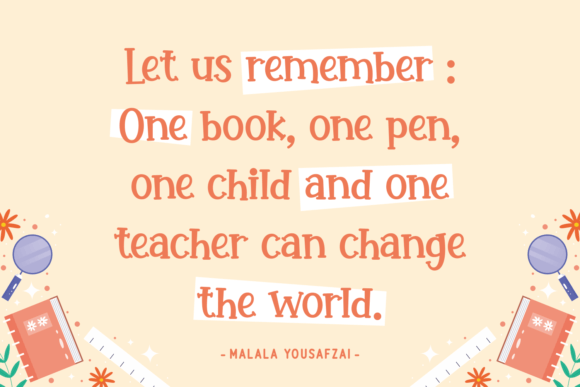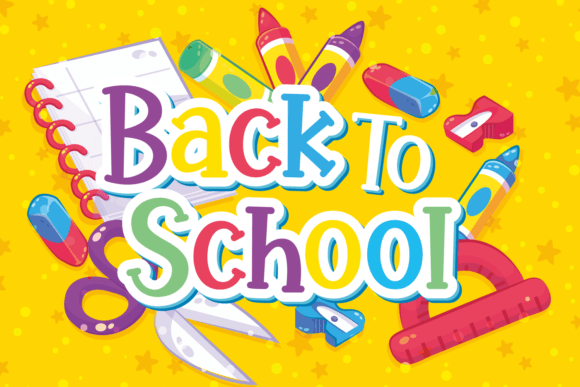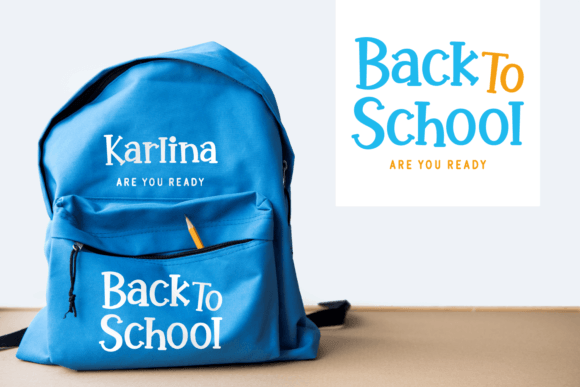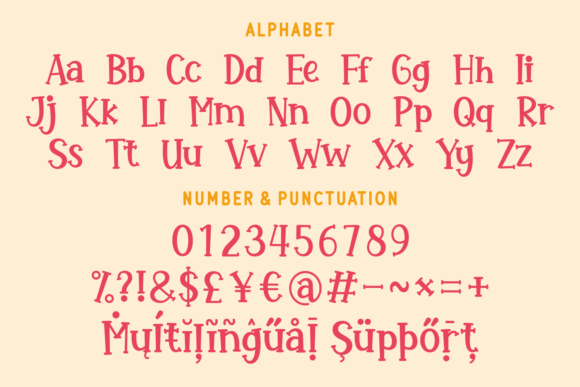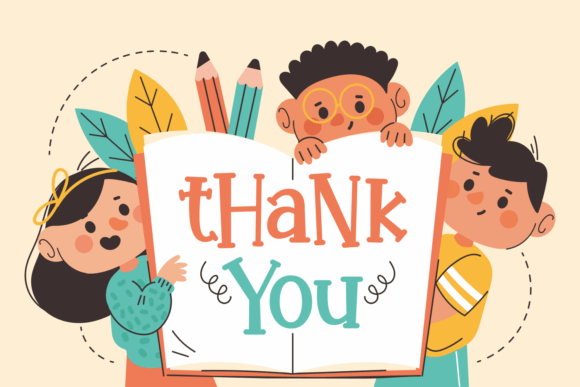
Introduction to Danila School Font
Danila School is a fun and playful serif font, suitable for any creative project with a youthful vibe.
Add it to childrenโs books, school supplies, storybooks, and more, and combine it with bright colors for the full-on effect .